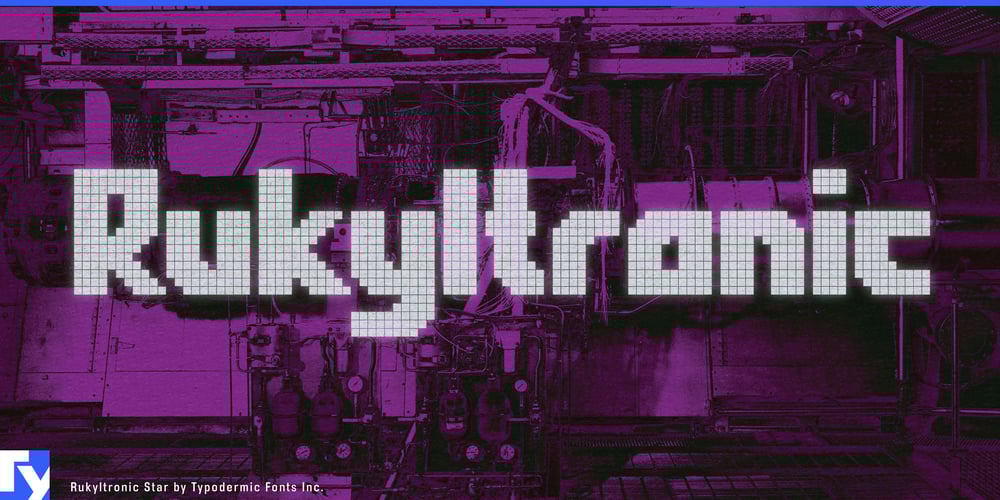
Rukyltronic
Rukyltronic font
Rukyltronic Font Family was designed by Ray Larabie and published by Typodermic. Rukyltronic contains 8 styles and family package options. Step into the pixelated realm of Rukyltronic, a synthetic bitmap font that captures the spirit of digital pioneers and bedroom coders who shaped the early days of personal computing. This typeface isn’t just a nod to nostalgia—it’s a time machine, transporting your designs to an era when imagination outpaced technology, and every line of code felt like magic.Rukyltronic’s charm lies in its deliberate imperfections. Its variable gaps and full-pixel kerning don’t just mimic the limitations of early computer displays; they celebrate them. Each character is a tiny work of art, crafted with the same loving attention to detail that young programmers once poured into their passion projects, huddled over glowing monitors long past bedtime. Choose Rukyltronic when your design needs to speak the language of digital dreamers. Its unique aesthetic makes it perfect for projects that aim to capture the essence of technological innovation and youthful creativity. Whether you’re designing a retro-inspired game interface, crafting album art for a synthwave band, or creating a title sequence for a documentary about the dawn of home computing, Rukyltronic provides the visual vocabulary to tell your story.Despite its distinctly British roots, Rukyltronic’s linguistic capabilities are anything but limited. Supporting a wide range of Latin-based European writing systems, it ensures your message maintains its quirky charm across cultures. From the misty moors of Scotland to the sun-drenched beaches of Portugal, Rukyltronic speaks to the digital dreamer in all of us. In a world of sleek, polished typography, Rukyltronic offers a refreshing alternative. It’s more than just a font; it’s a tribute to the DIY spirit that birthed a digital revolution. Let Rukyltronic be the cornerstone of your next project, and watch as it transforms your ideas into a playful, pixelated adventure that resonates with the wonder of discovery and the joy of creation.Load up Rukyltronic, and let your imagination run wild in glorious low resolution. The future of yesterday is waiting to be rediscovered through your designs today.